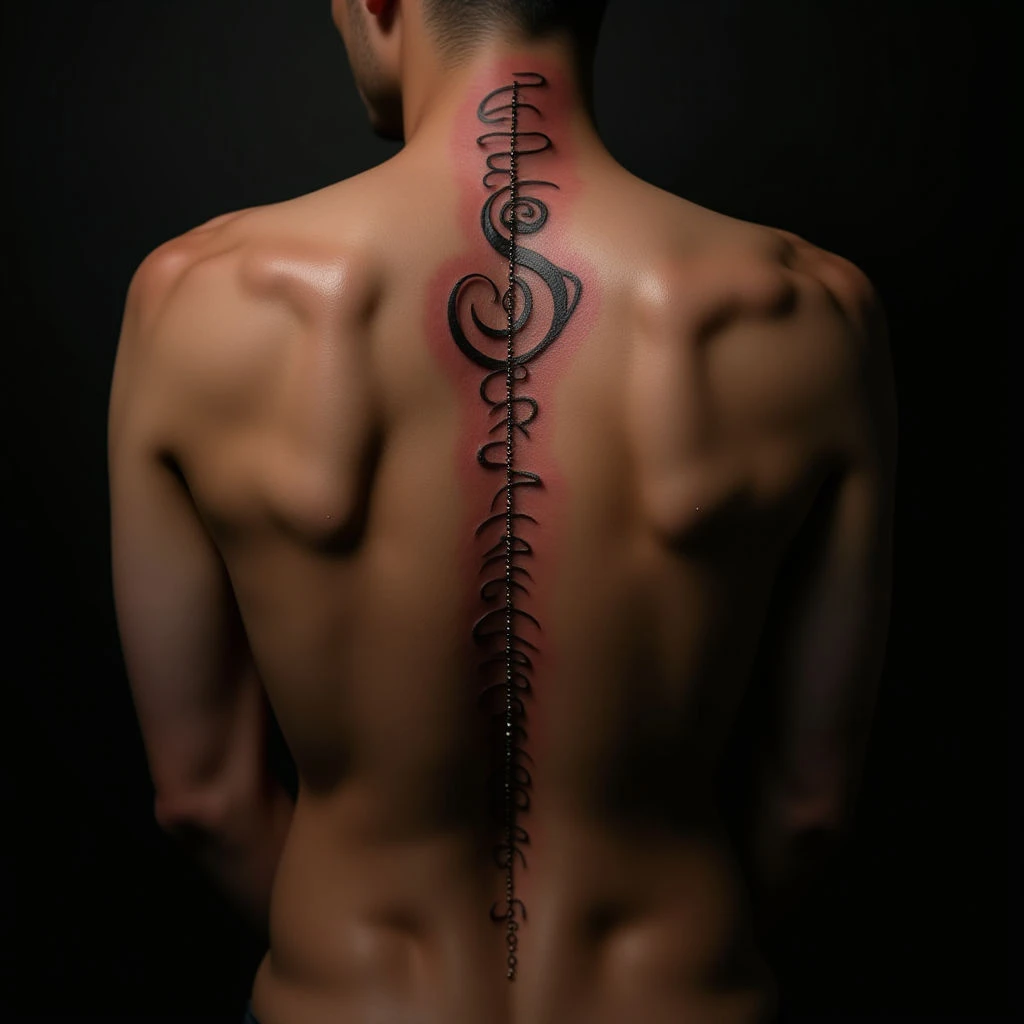
Discover the best fonts for tattoos featuring numbers, perfectly suited for blackwork designs and placement along your spine. Explore typography ideas for meaningful dates or coordinates.
Number Fonts for Tattoos: Blackwork Styles on Your Spine
Fine black linework defines intricate branches and abstract shapes, tracing a vertical path along the spine. Subtle red undertones near the neck add visual interest against the dominant black ink. The high level of detail suggests a skilled artist's hand.
This design exemplifies blackwork tattooing, lending itself beautifully to the curvature of the spine. Ideal for smaller designs (size 's'), it’s perfect for incorporating meaningful numbers – dates, coordinates, or significant figures rendered in striking typography.
Consider how different fonts will interact with this style; bold serifs or clean sans-serifs can both work well. The brown-red accents offer a touch of warmth and personalization to the otherwise stark blackwork aesthetic.